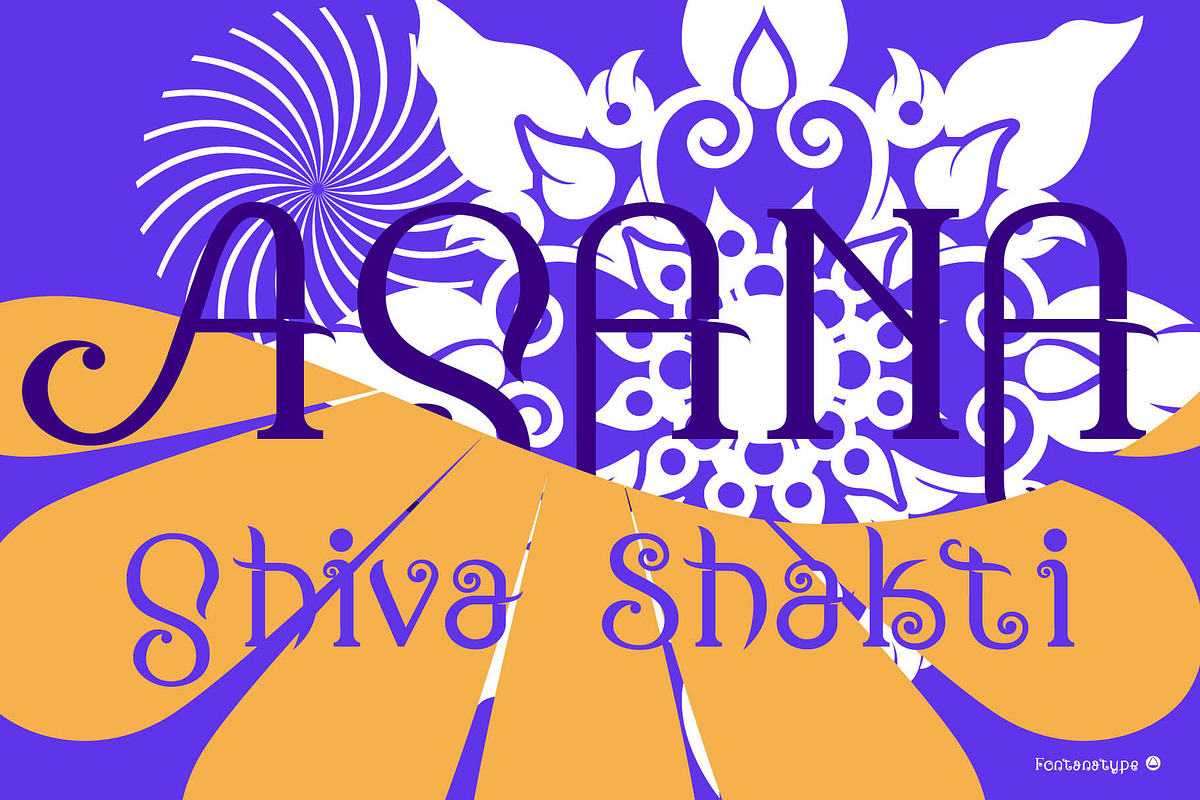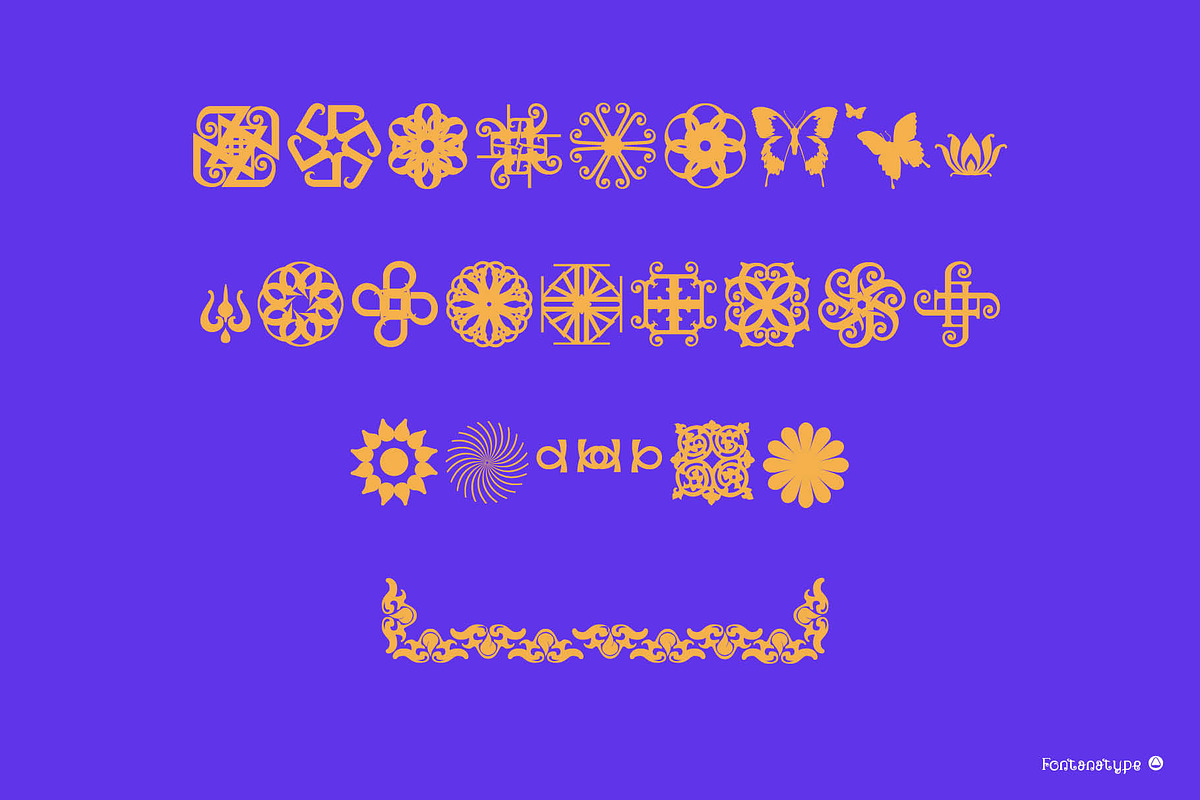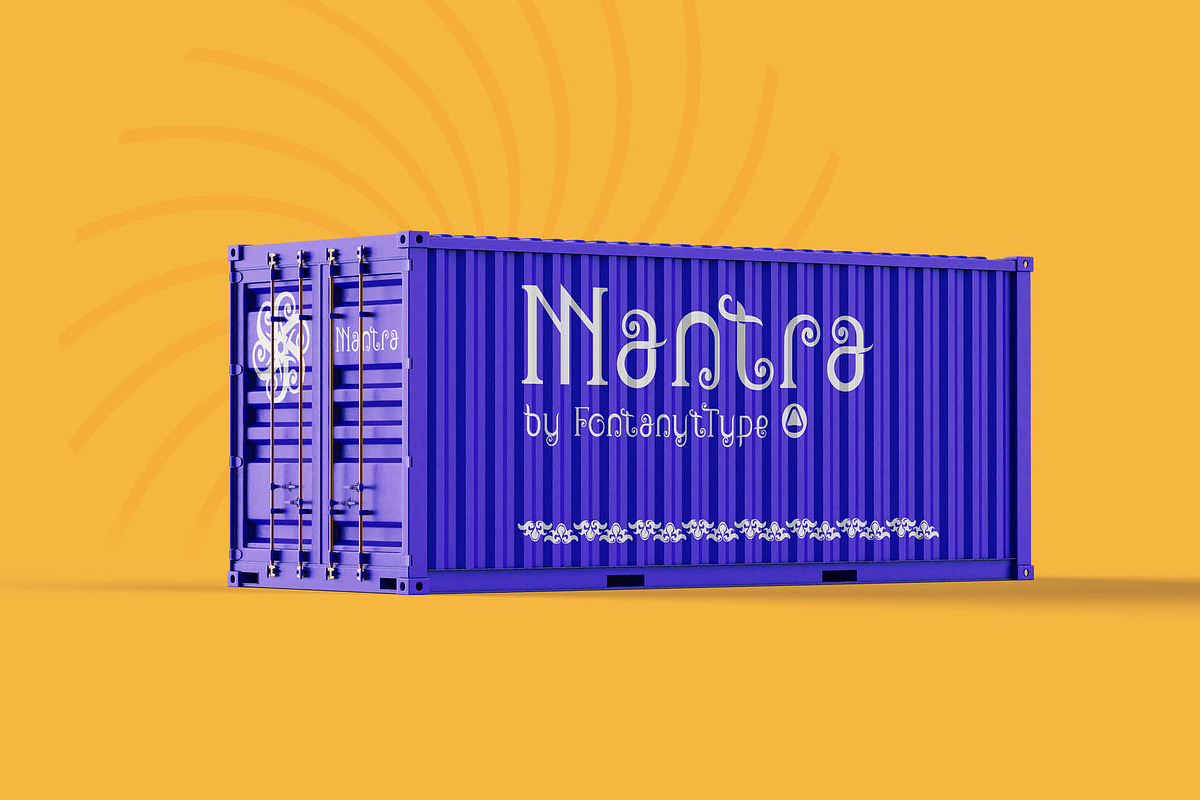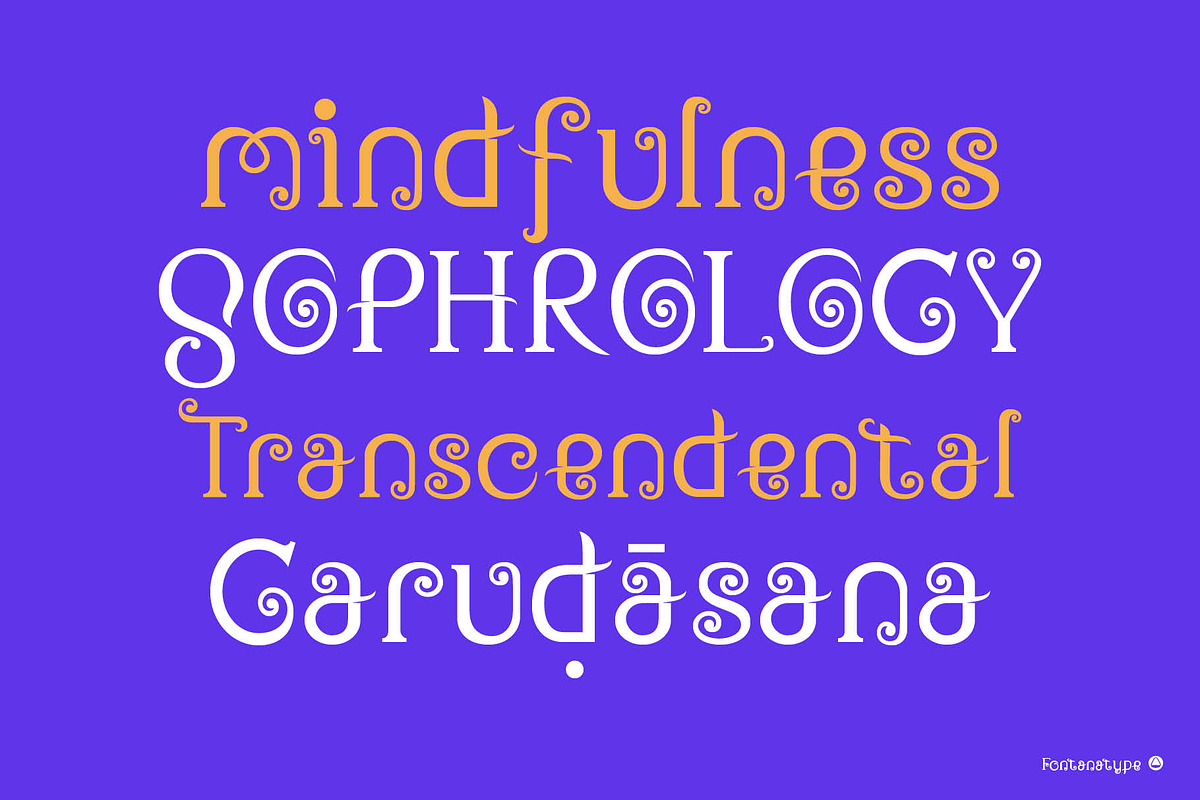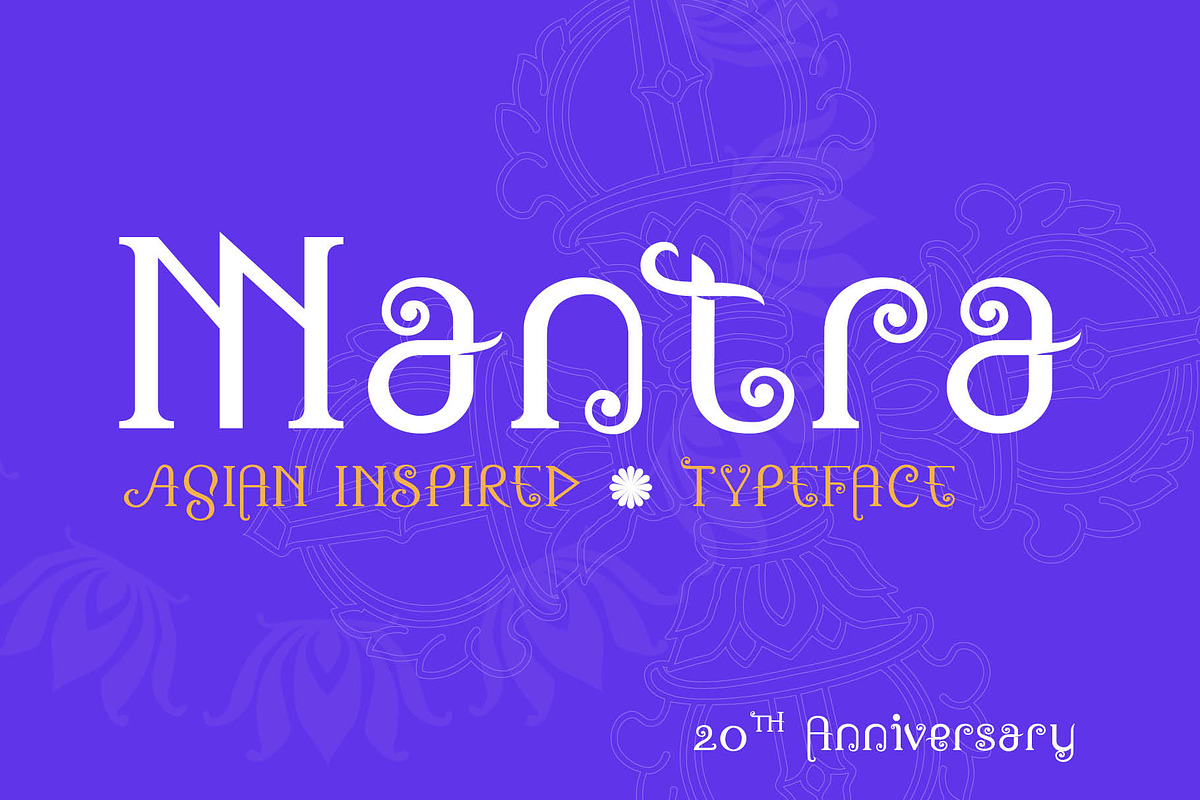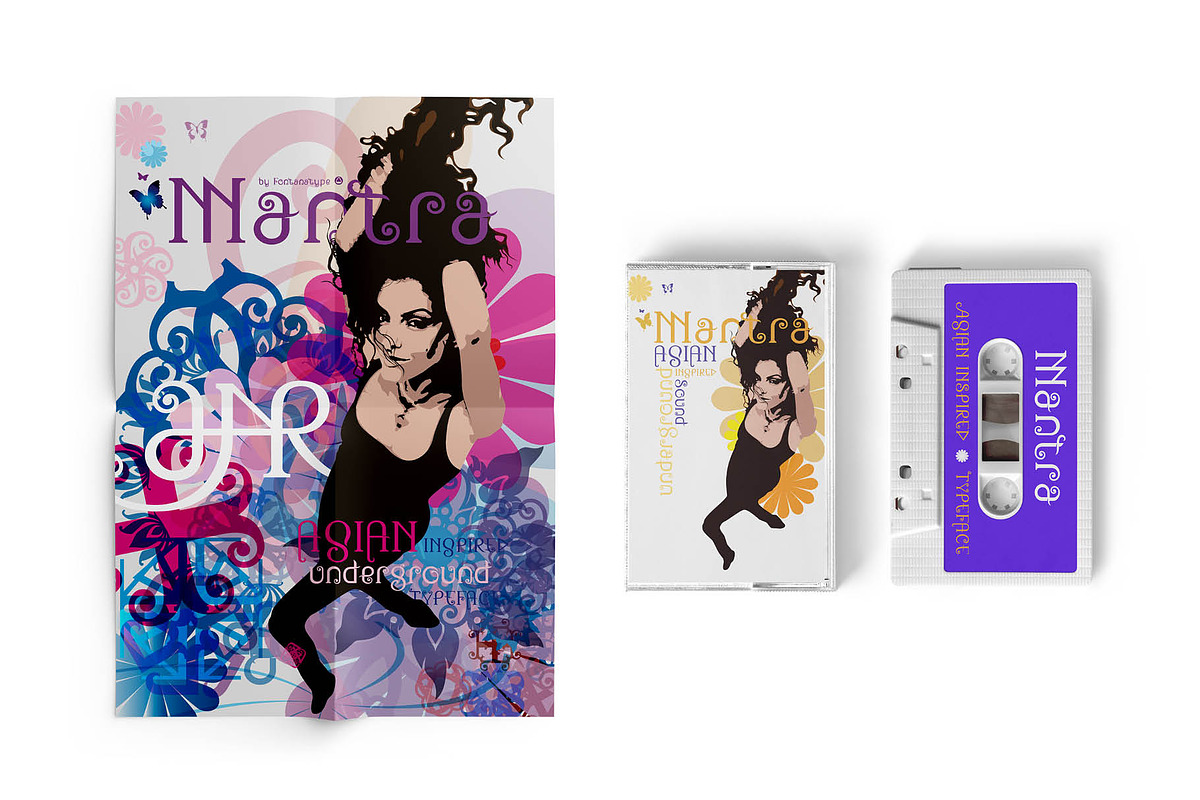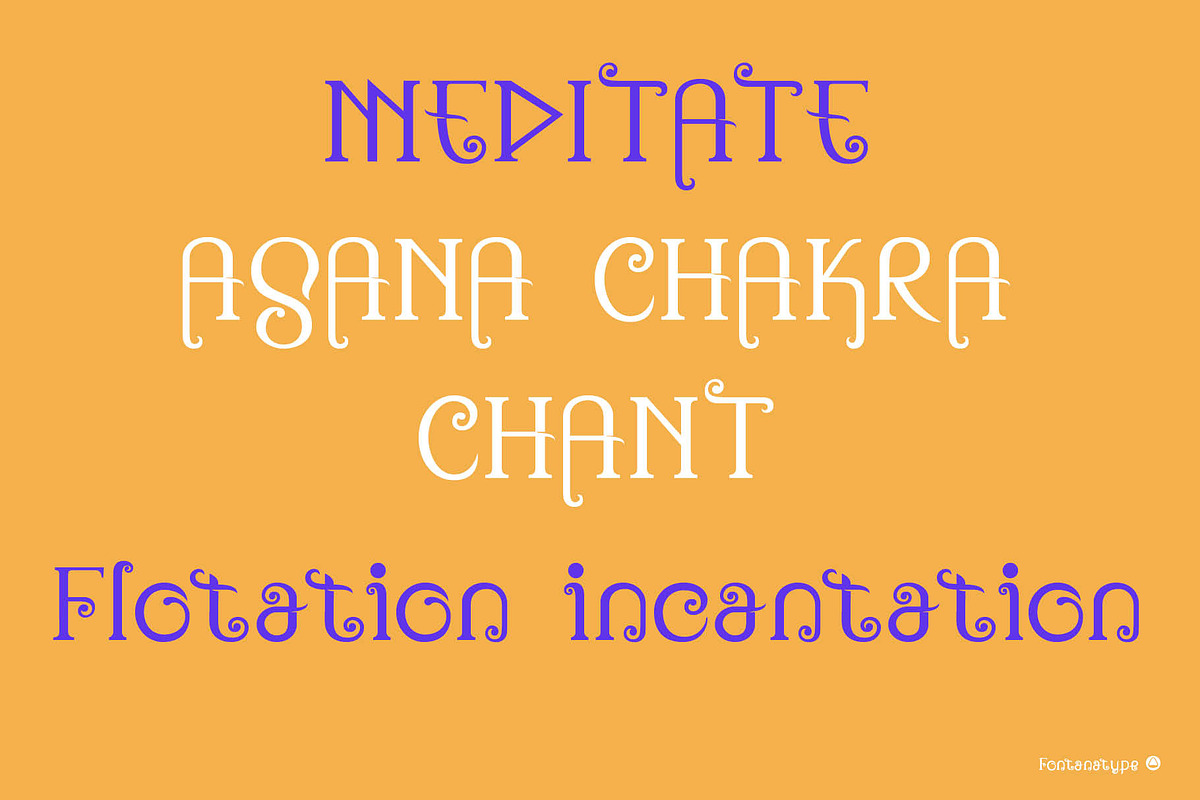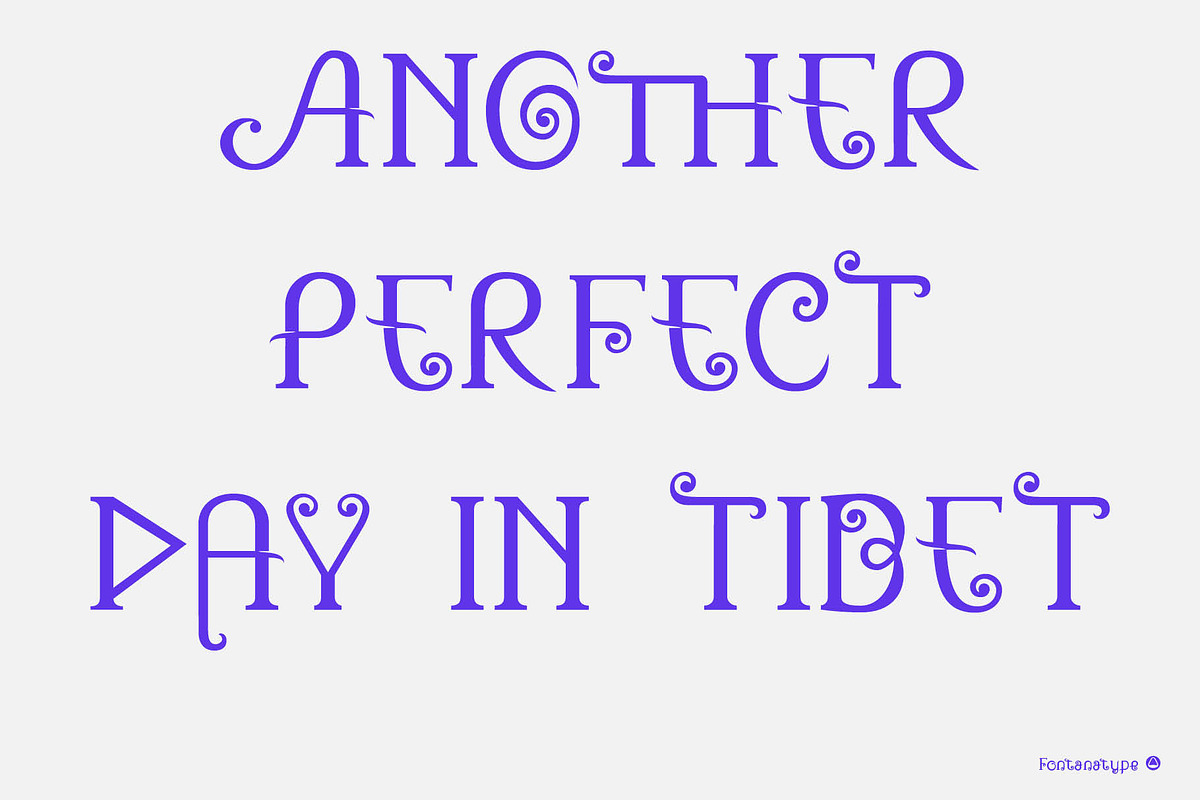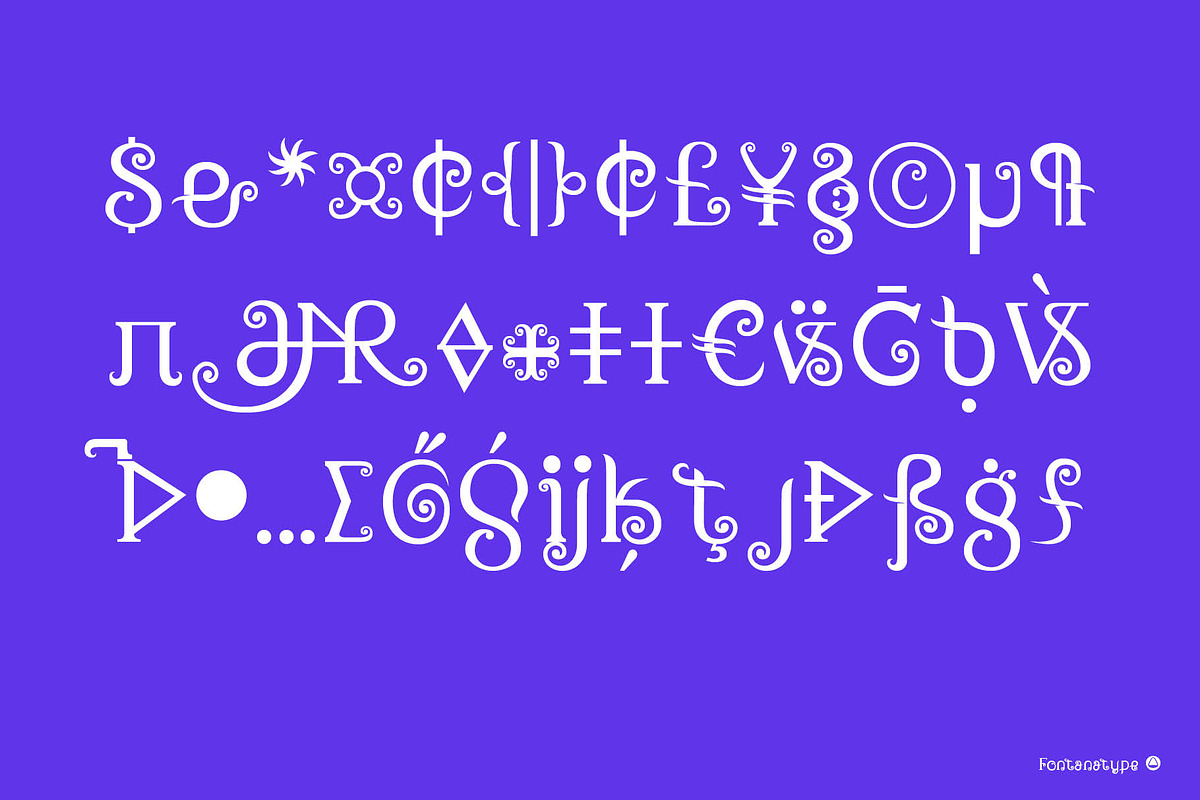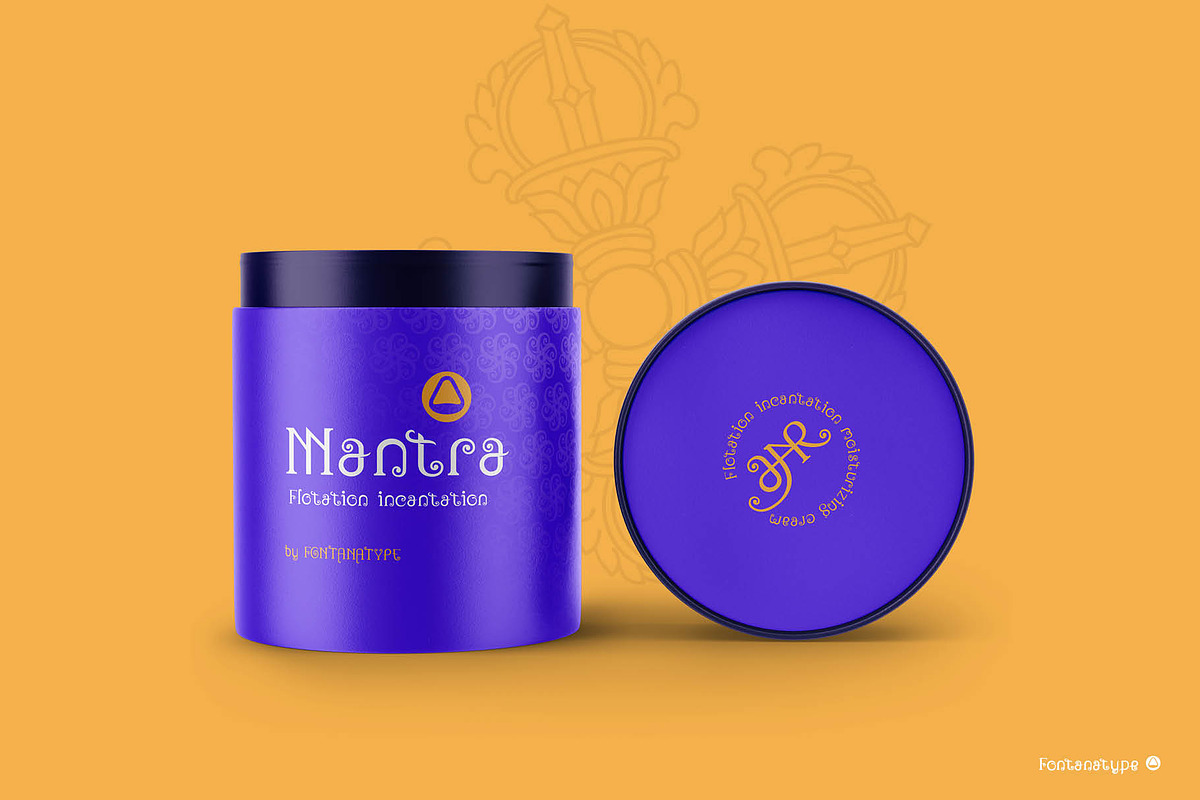
Mantra
The Mantra typeface, born from my extensive experimentation with transforming letters and characters into a unique Latin alphabet, embodies a synthesis of creativity and cultural influences. Inspired by the elegant lines of an Indian fragrance stick box and fueled by the introspective journey of yoga and Eastern philosophies, Mantra captures the essence of diverse inspirations.
Intriguingly, echoes of an Eastern spirit resonate within Hungarian motifs, paying homage to the ancient Hungarian alphabet and the Hungarian Runes. Despite the replacement of the runes by the Latin alphabet centuries ago, Hungarians have steadfastly retained their connection to Eastern origins. As the development of Mantra neared completion, a subtle touch of the baroque emerged, adding an unexpected dimension to its character.
Designed with a purpose, I believe the Mantra type is most adept at expressing freedom, colors, and music. Its inherent versatility not only preserves the visual impact of original characters but also makes it effortlessly adaptable for continuous improvement and creative exploration.